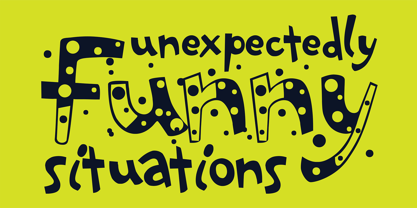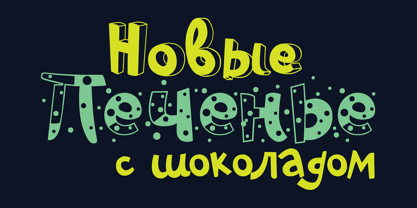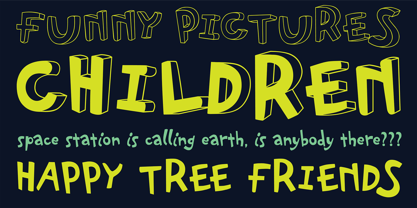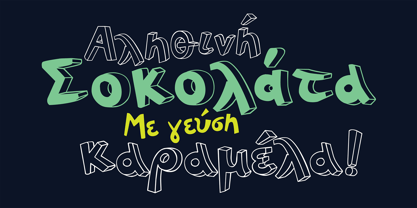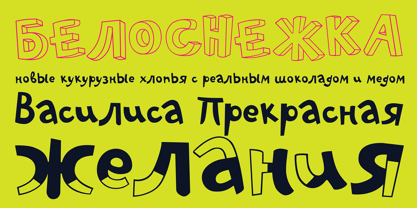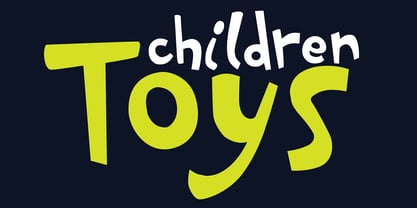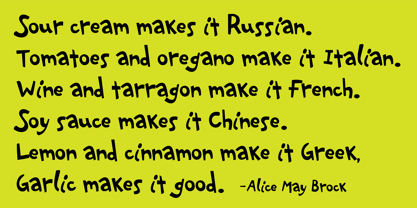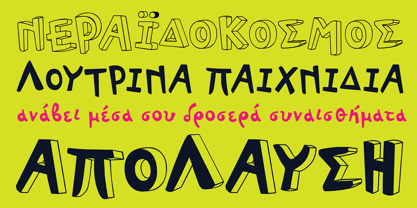
PF Playskool Pro™
by Parachute
The PF Playskool Pro Font Family was designed by Alexandros Papalexis and published by Parachute. PF Playskool Pro contains 5 styles and family package options. More about this family
A great fun typeface with a straightforward childlike simplicity. It really hits home with kids, but if you want to add this extra playful personality to your designs this is the one to use. It has a strong, easy to read structure, which makes it ideal for children’s books, toys and other fun applications. Designer Alexandros Papalexis has discover the kid within. You can too!